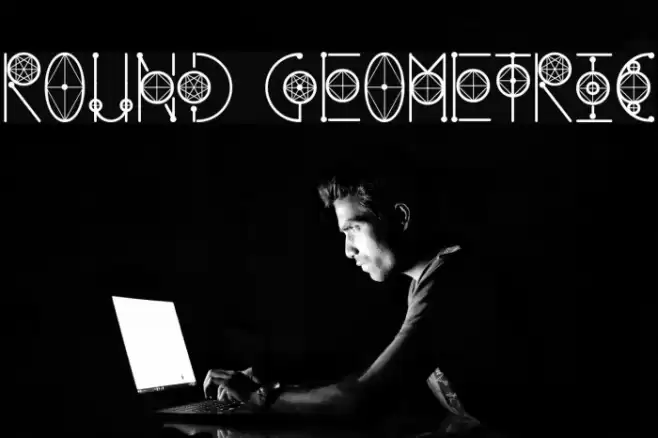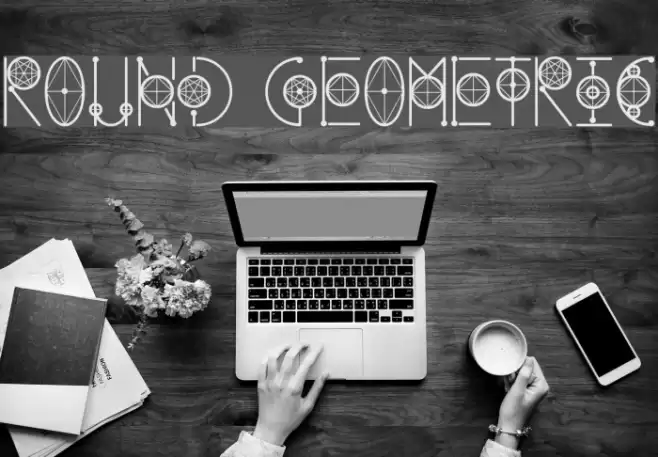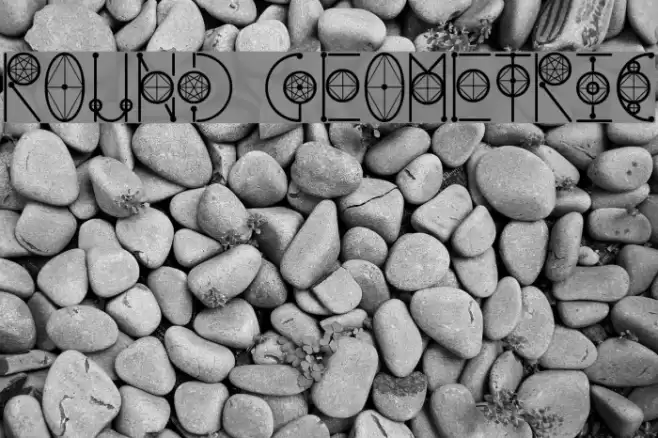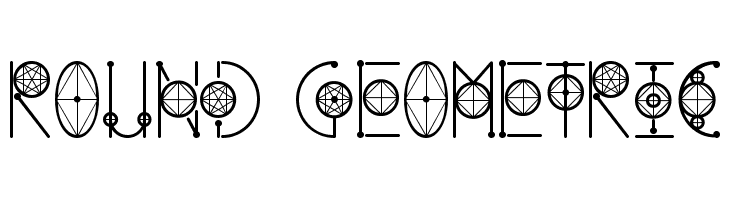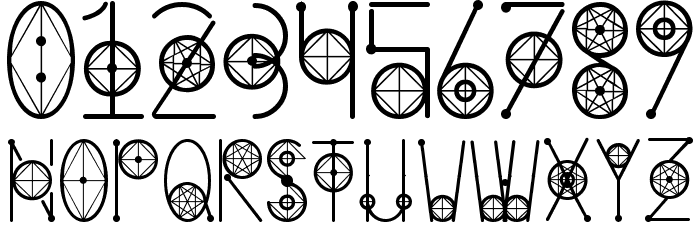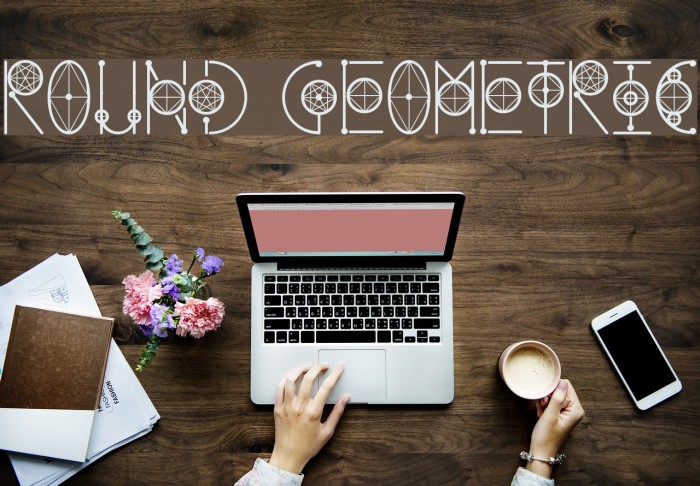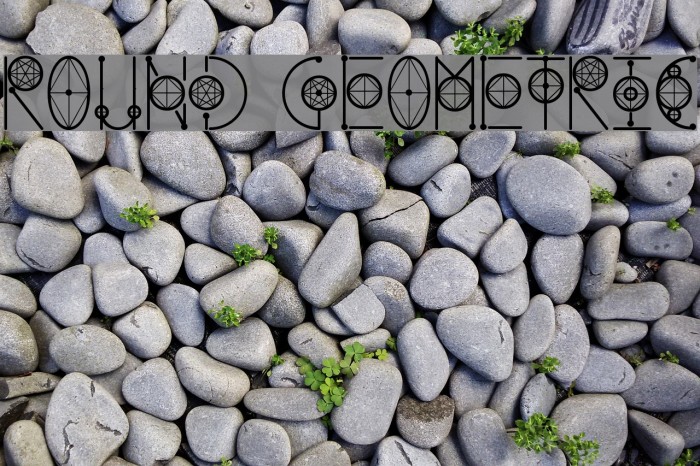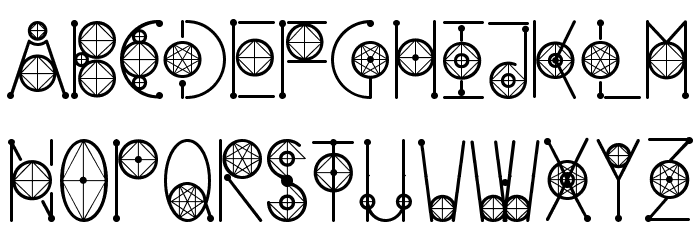
Round Geometric Font
Round Geometric Description
This font features a unique blend of geometric shapes and circular motifs, creating a distinct and artistic appearance. Each character is crafted with precision, incorporating circles, lines, and dots that give it a futuristic and abstract feel. The uppercase and lowercase letters maintain a consistent style, with intricate designs that resemble technical drawings or architectural blueprints. Numbers and special characters follow the same design principles, ensuring a cohesive look across all glyphs. The font's intricate details make it stand out, offering a modern and innovative aesthetic.
A geometric and artistic font with circular motifs and intricate designs from Decorative fonts.
- Proposed Projects: Ideal for creative projects such as logos, posters, album covers, and digital art where a modern and unique style is desired.
- Use Case: Logos, Posters, Digital Art